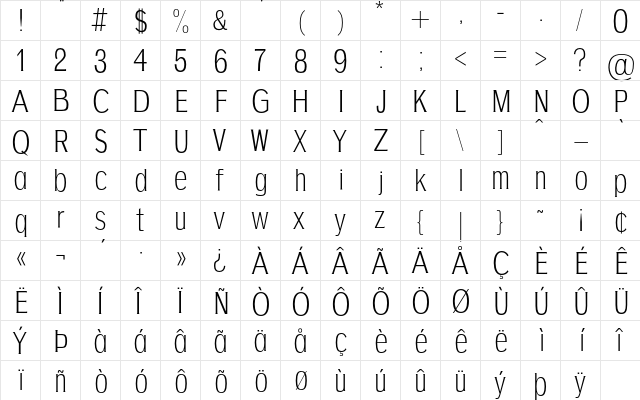
AGAJDA Regular
Design Context for AGAJDA Typeface
AGAJDA takes a measured approach to typography — its balanced proportions and neutral character make it a reliable workhorse for both digital and print work.